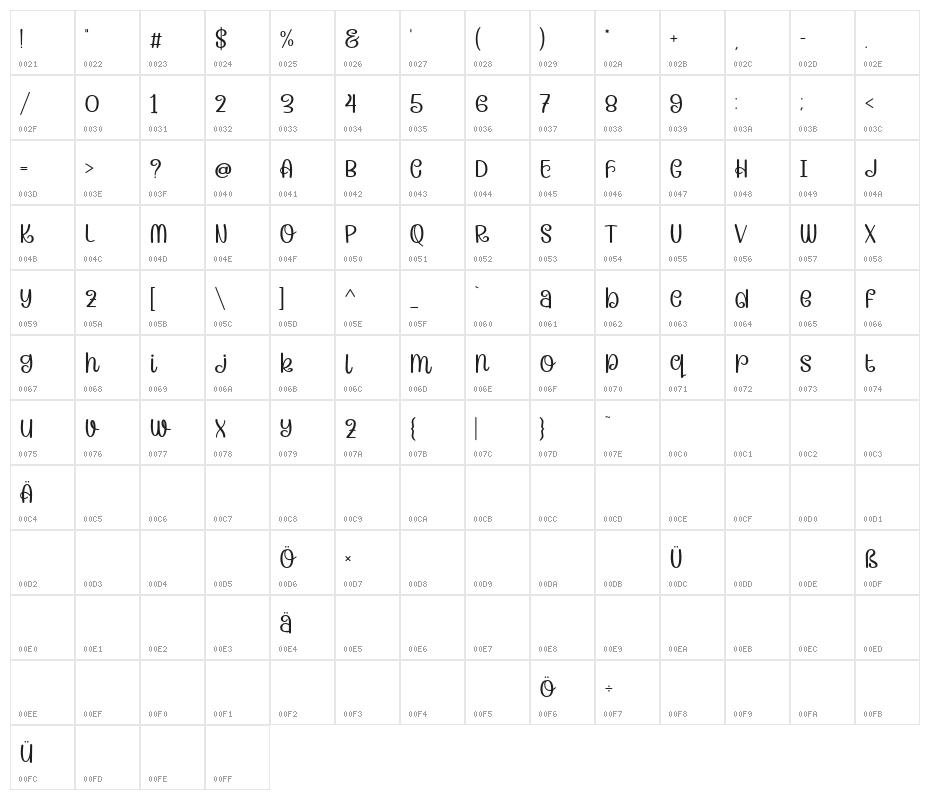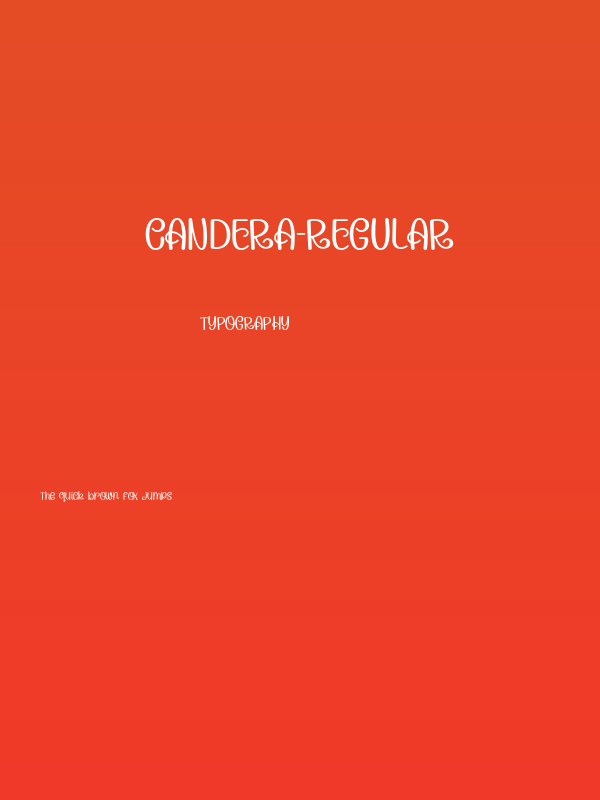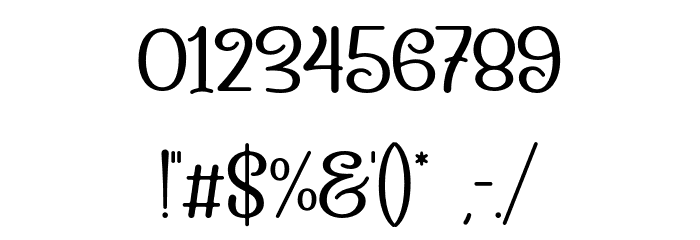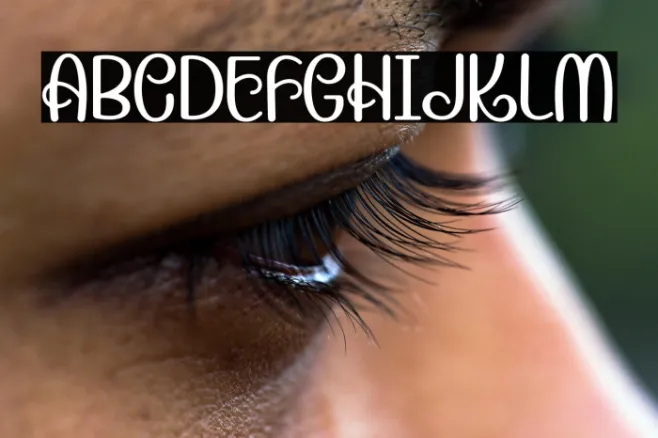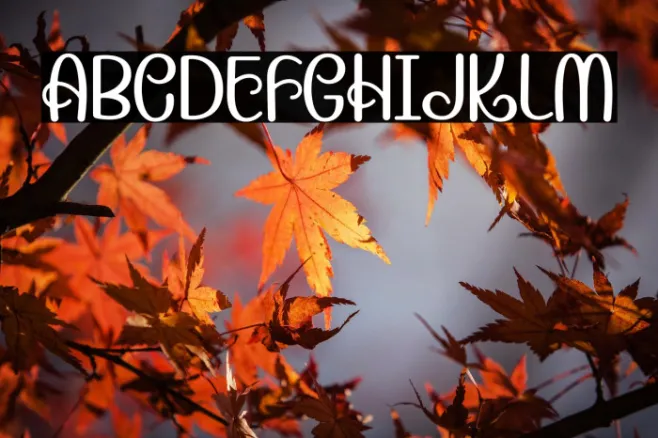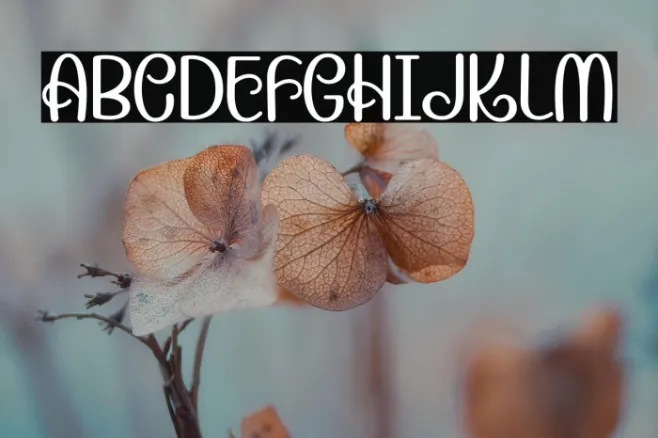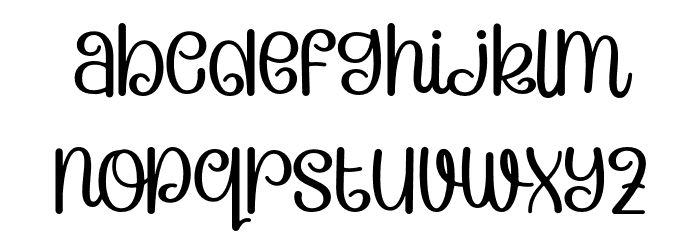
Candera-Regular Font
Candera-Regular Description
This font features a playful and whimsical design, characterized by its rounded and flowing letterforms. The uppercase letters have a unique style with loops and curves that add a touch of elegance and creativity. The lowercase letters maintain a consistent flow, complementing the uppercase with their smooth and connected strokes. Numbers and special characters are designed to match the overall aesthetic, ensuring a cohesive look across all text. The font's style is both modern and decorative, making it suitable for projects that require a fun and engaging appearance.
| Proposed Projects | Ideal for children's books, greeting cards, playful branding, and creative invitations. |